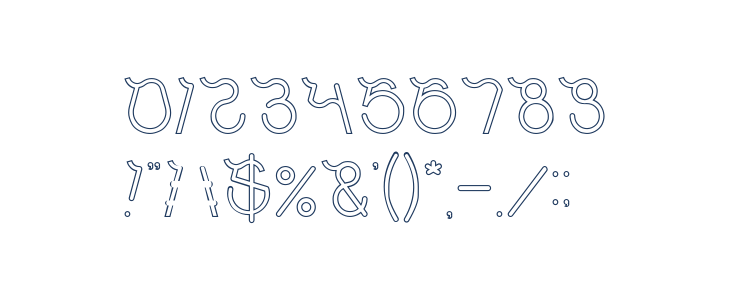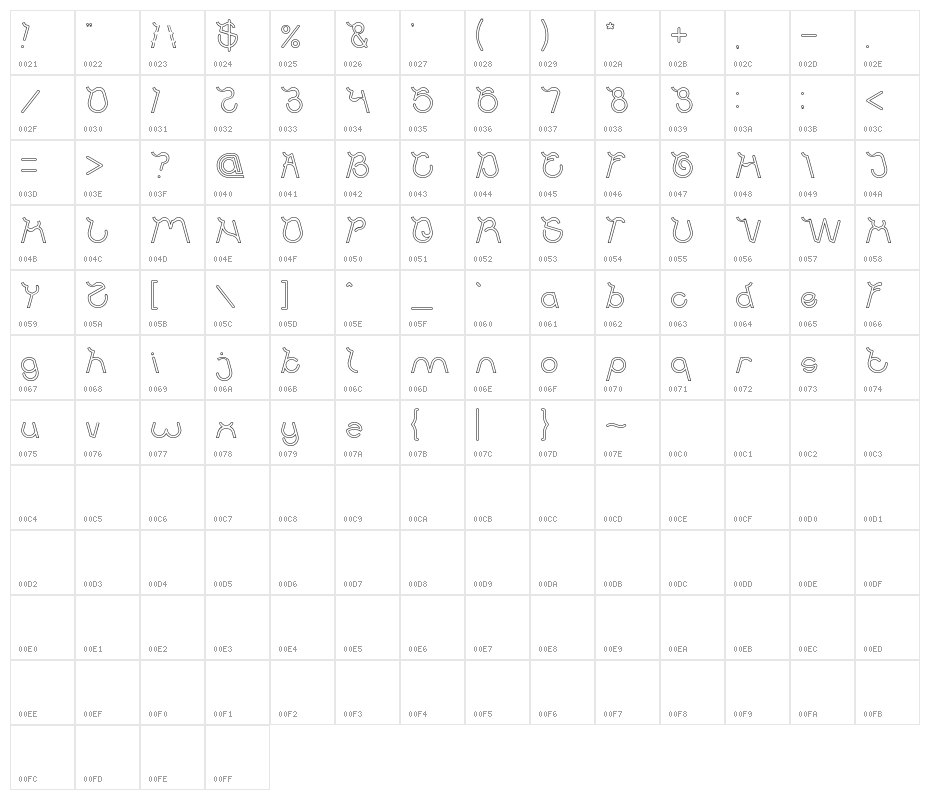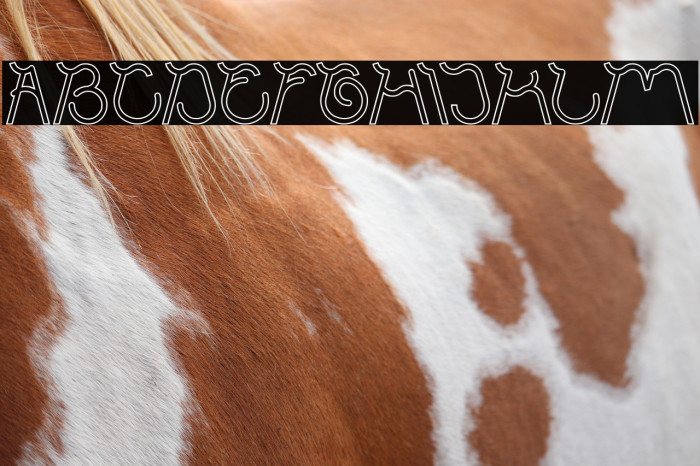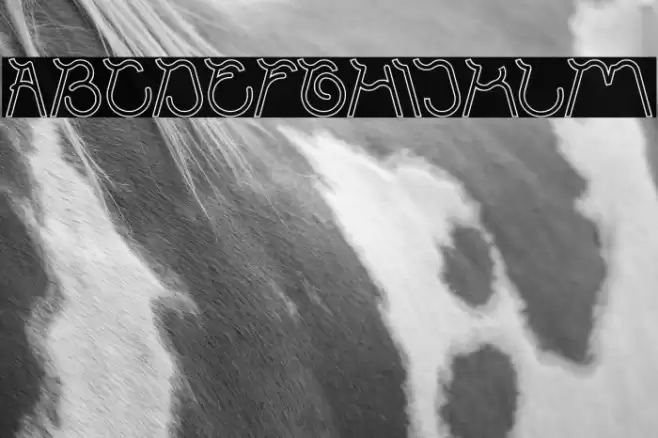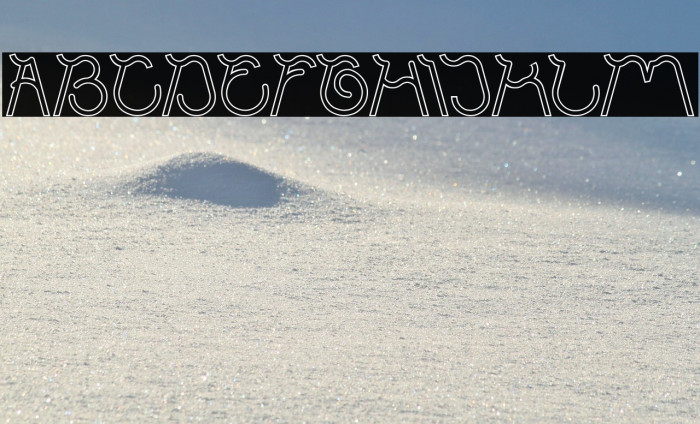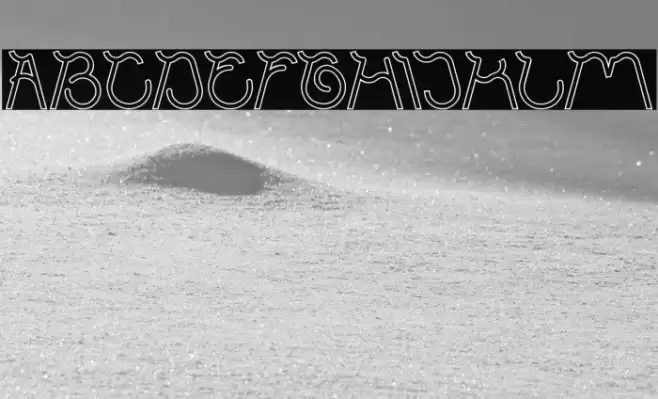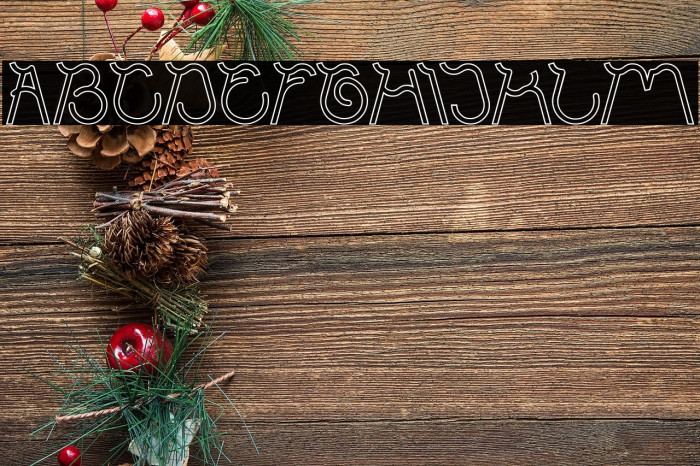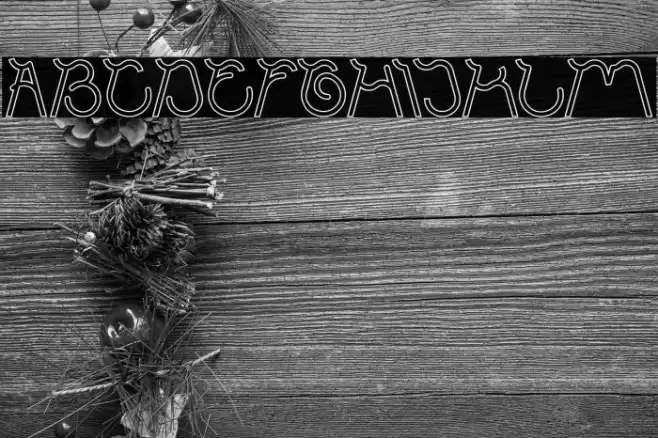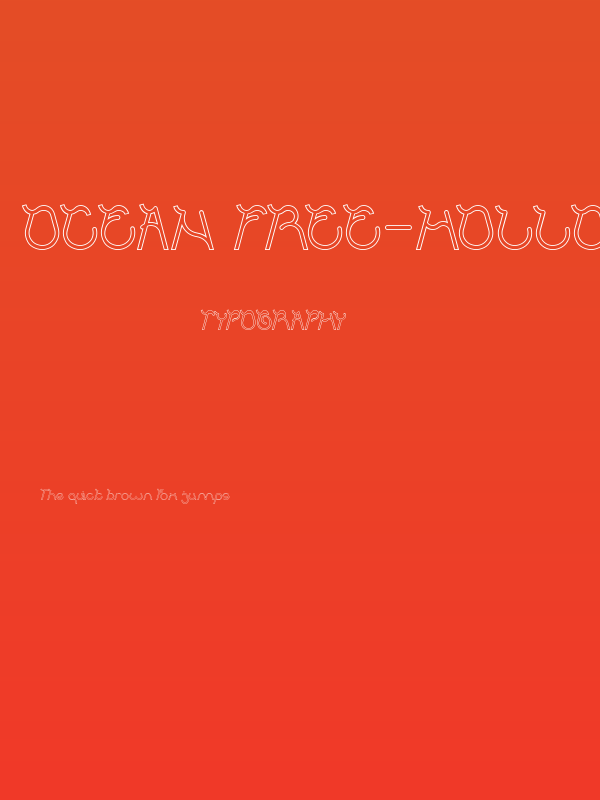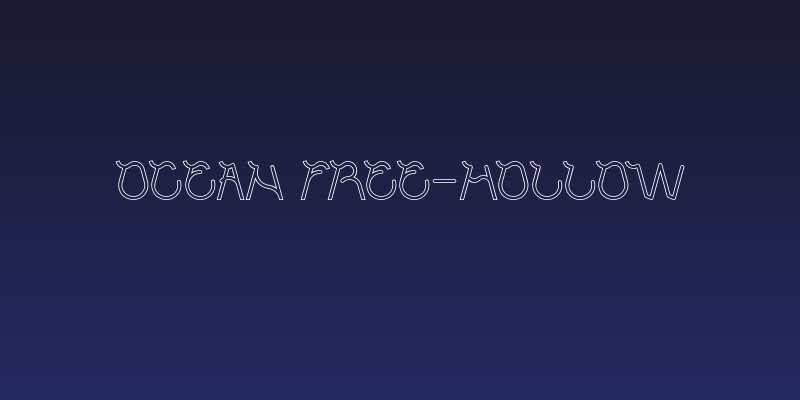
Ocean Free-Hollow Font
Ocean Free-Hollow Description
This font features a unique hollow design with a playful and artistic flair. Each character is outlined, creating a sense of openness and lightness. The uppercase letters have a whimsical touch, with some incorporating spiral or curved elements that add a dynamic feel. The lowercase letters maintain this playful style, ensuring consistency throughout. Numbers and special characters follow the same hollow, outlined aesthetic, making them stand out in a creative way. The overall design is modern and decorative, suitable for projects that require a distinctive and eye-catching typeface.
| Proposed Projects | Ideal for creative projects such as posters, invitations, and branding materials where a unique and artistic font is desired. |